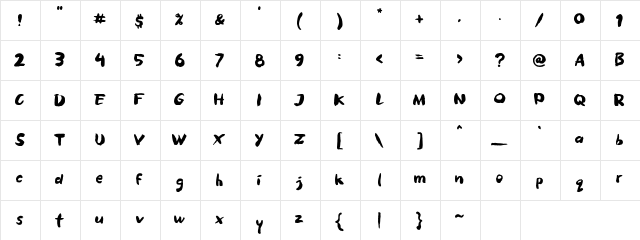
Brush Brezz Regular
Design Context for Brush Brezz Typeface
Brush Brezz flows with the natural rhythm of handwritten lettering, making it ideal for designs that call for warmth and personal expression.
Font Pairing: Combine Brush Brezz with a simple geometric sans for maximum contrast — the tension between flowing curves and clean structure is a classic typographic pairing.
Pro Tip: Pair Brush Brezz with a clean sans-serif for supporting text. The contrast between fluid script and geometric structure creates an elegant typographic hierarchy.